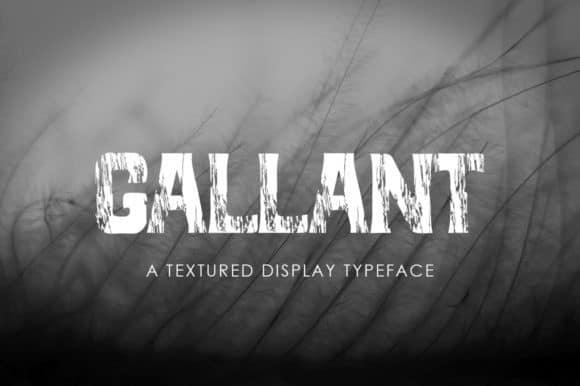
Gallant Display Font
Gallant is a casual, fun display font. This unique font will turn any creative idea into a true standout. Gallant Font was designed carefully to create elegant typographic works. So, this bold & attractive font features the natural brush strokes and imperfections of anything hand painted, giving you a truly authentic end result.
Presented here in the form vintage badges and branding, this versatile font can be used for many different styles of design. It would be equally suited for headlining an event poster, titling a website or advertising an apparel brand.